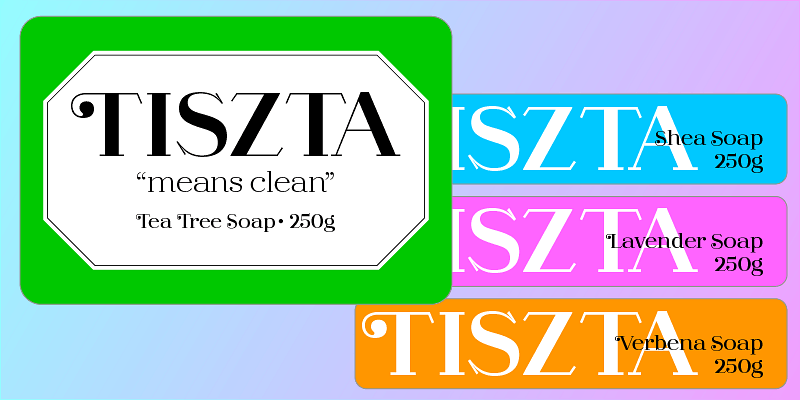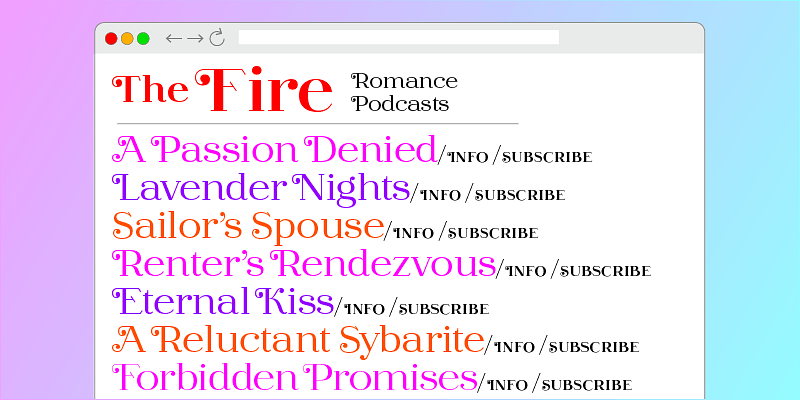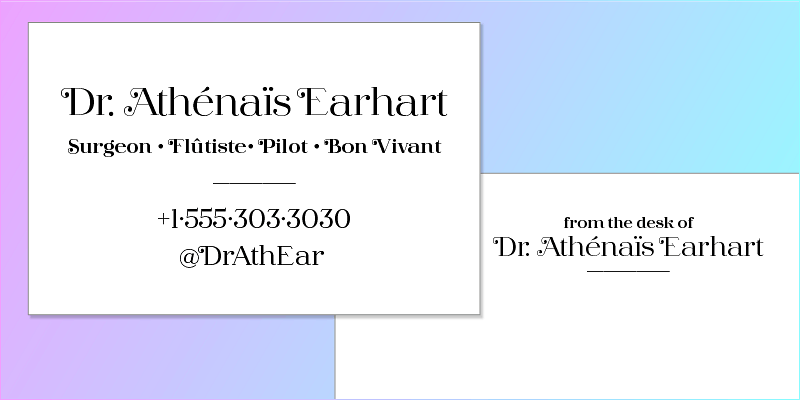
Barteldes is a striking display type family that reimagines classic American letters for the twenty-first century. Barteldes is perfectly suited to editorial, advertising, and package design. Six weights can handle a wide range of headlines. Size-specific fonts maintain hairlines in small, medium, and large sizes. Swash capitals enliven words. And an expansive character set covers over 200 languages.
Barteldes is based on American architectural lettering and sign painting. Capital letters were based on architectural lettering by the Denver architectural firm Gove & Walsh and built in 1906. Lowercase letters were based on exemplars in Frank Atkinson’s classic manual “Sign Painting Up to Now”, published in 1909.